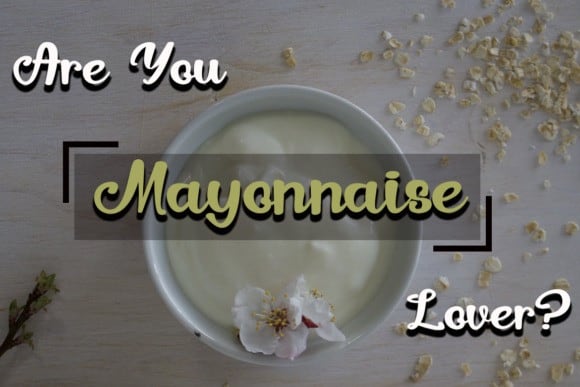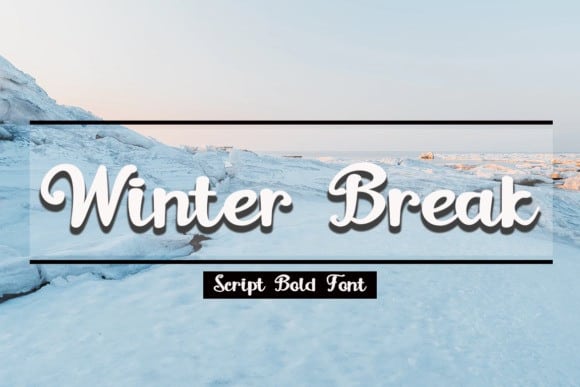
Winter Break Calligraphy Font is a Fancy & Unique script font that is absolutely great for your next creative project. Made from font designer named Supersemar Letter. This typeface is a sweet and flowing handwritten font. It looks stunning on wedding invitations, thank you cards, quotes, greeting cards, logos, business cards and every other design which needs a handwritten touch.